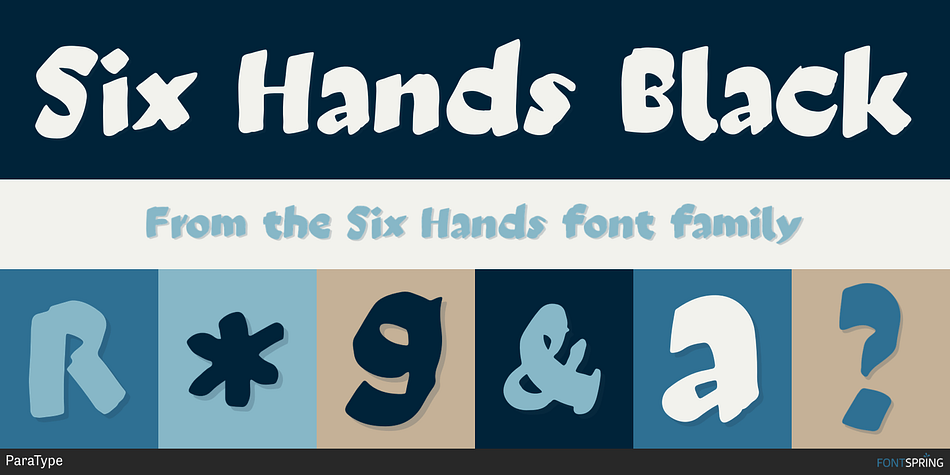
Six Hands Black
Designed by Alexandra Korolkova and Alexander Lubovenko, Six Hands is a brush script, hand display and hand drawn font family. This typeface has six styles and was published by ParaType.
Six Hands is a set of handwritten fonts based on various writing tools, such as pencil, felt-tip pen, ball-point pen, and brush.
Six Hands is a set of handwritten fonts based on various writing tools, such as pencil, felt-tip pen, ball-point pen, and brush. The character set of each of these fonts supports the Cyrillic alphabet, as well as the extended Latin script for all European languages. Most of the styles also contain additional alternatives that have the capability of automatically interchanging in the setting, which significantly variegates and humanizes the text. Six Hands is quite a rare combination of diverse display fonts that work well together. It is made for talented designers who can use it creatively in packaging, advertising, displays, posters, menus, invitations and so on. The design of Six Hands was a result of collaboration between Alexandra Korolkova, Alexander Lubovenko and all those who assist them in this work.
Designers Alexandra Korolkova, Alexander Lubovenko